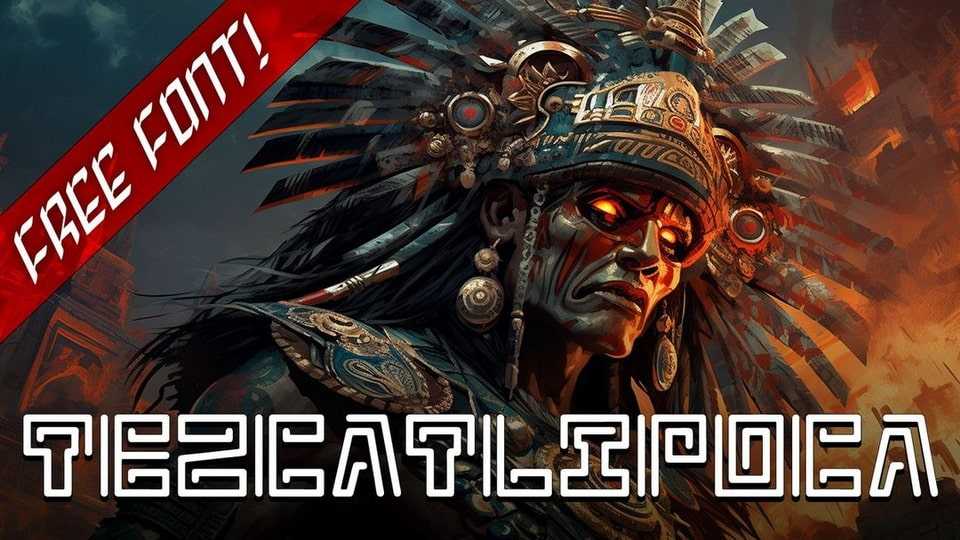
Download IA Tezcatlipoca font, a display typeface that draws its inspiration from the rich and intricate lettering of the Aztec civilizations. IA Tezcatlipoca adds an authentic and captivating element to every character, transporting your audience to a time of artistry and cultural significance.